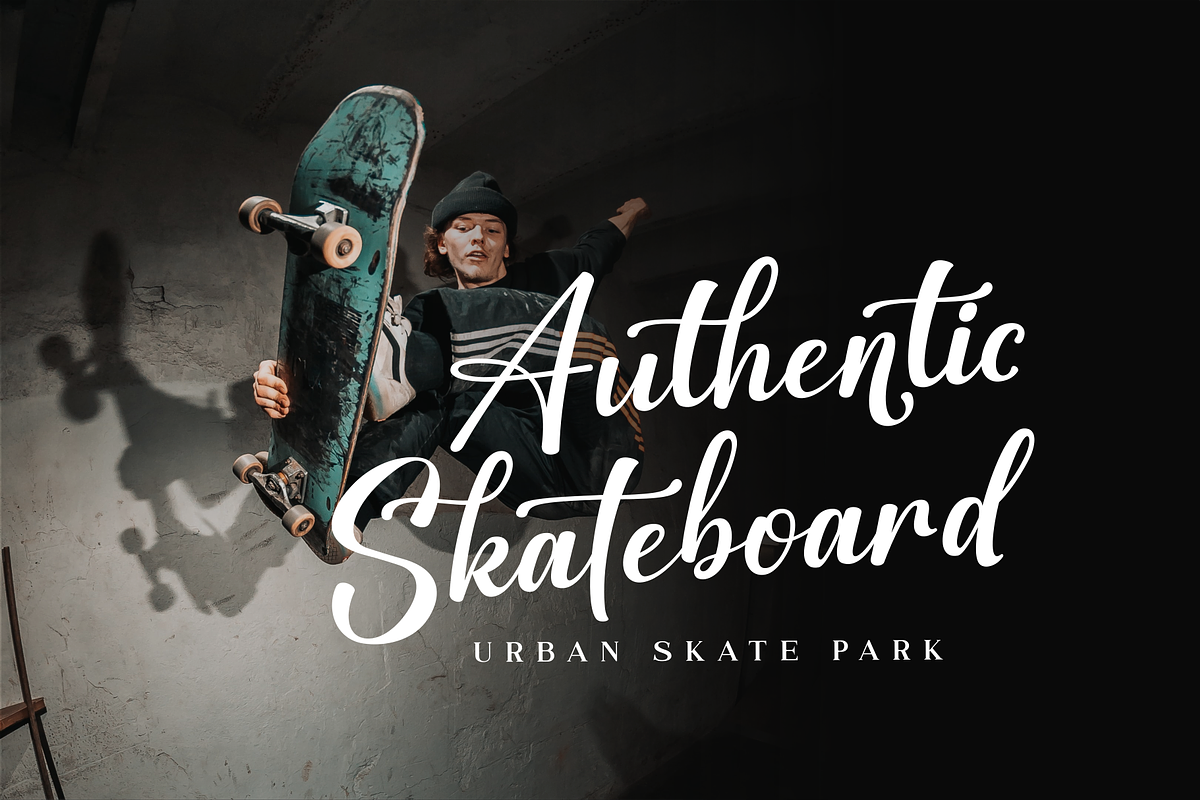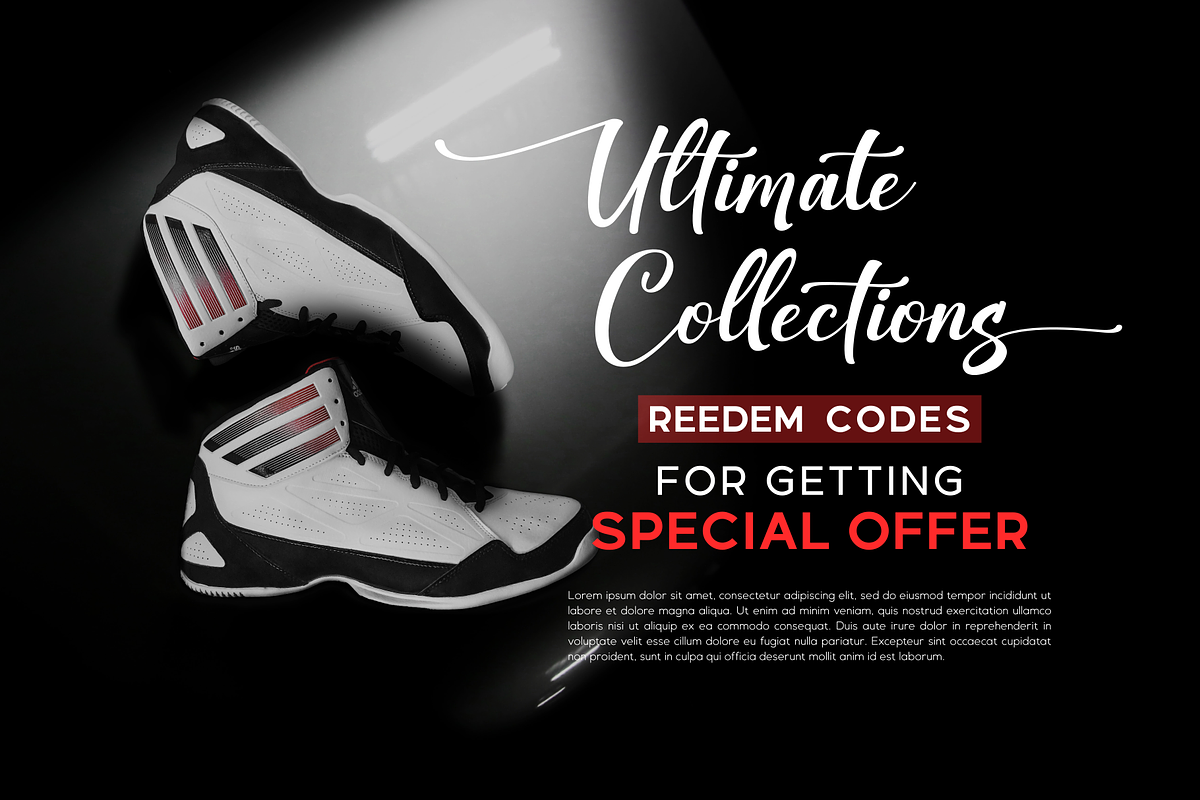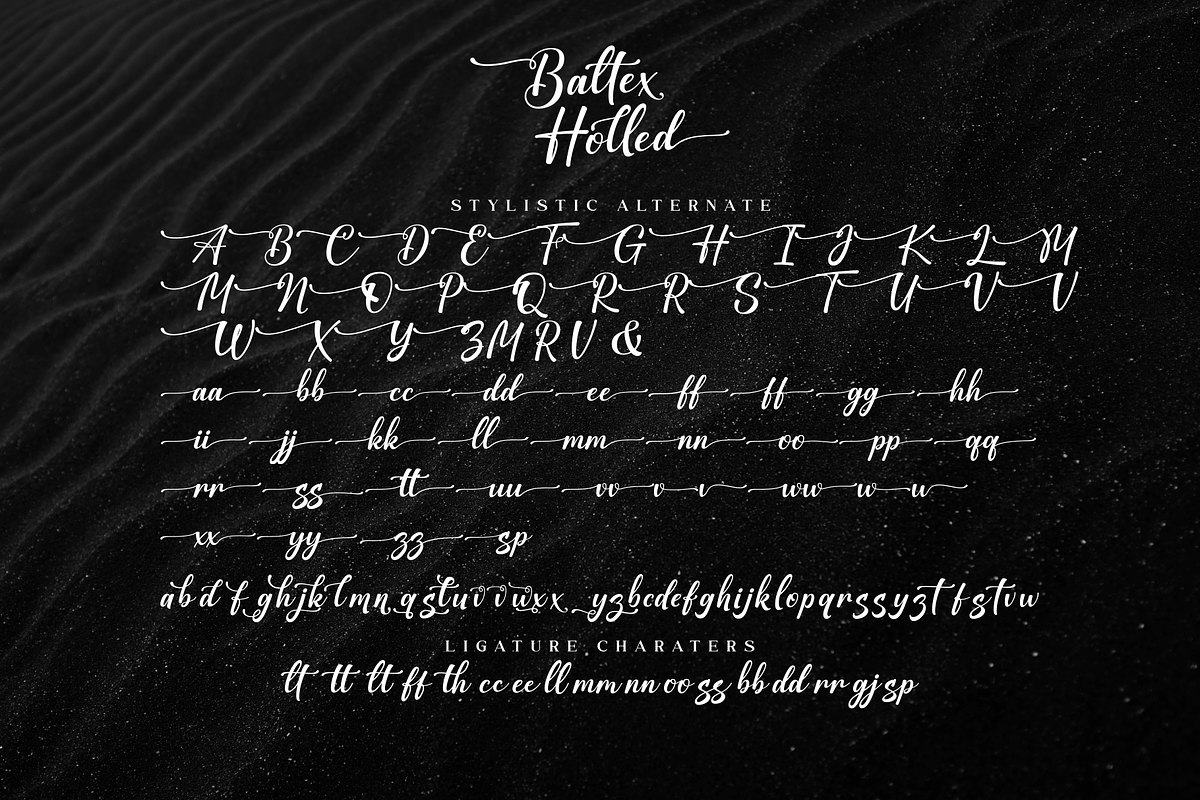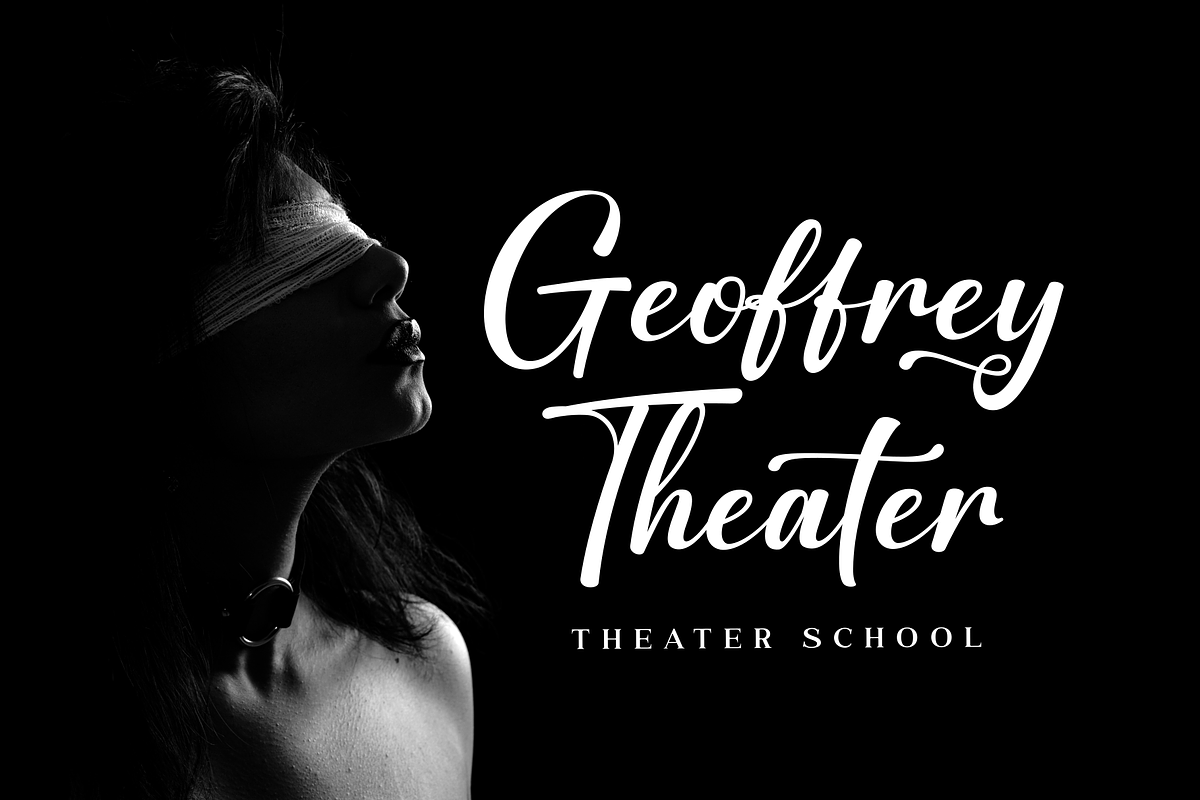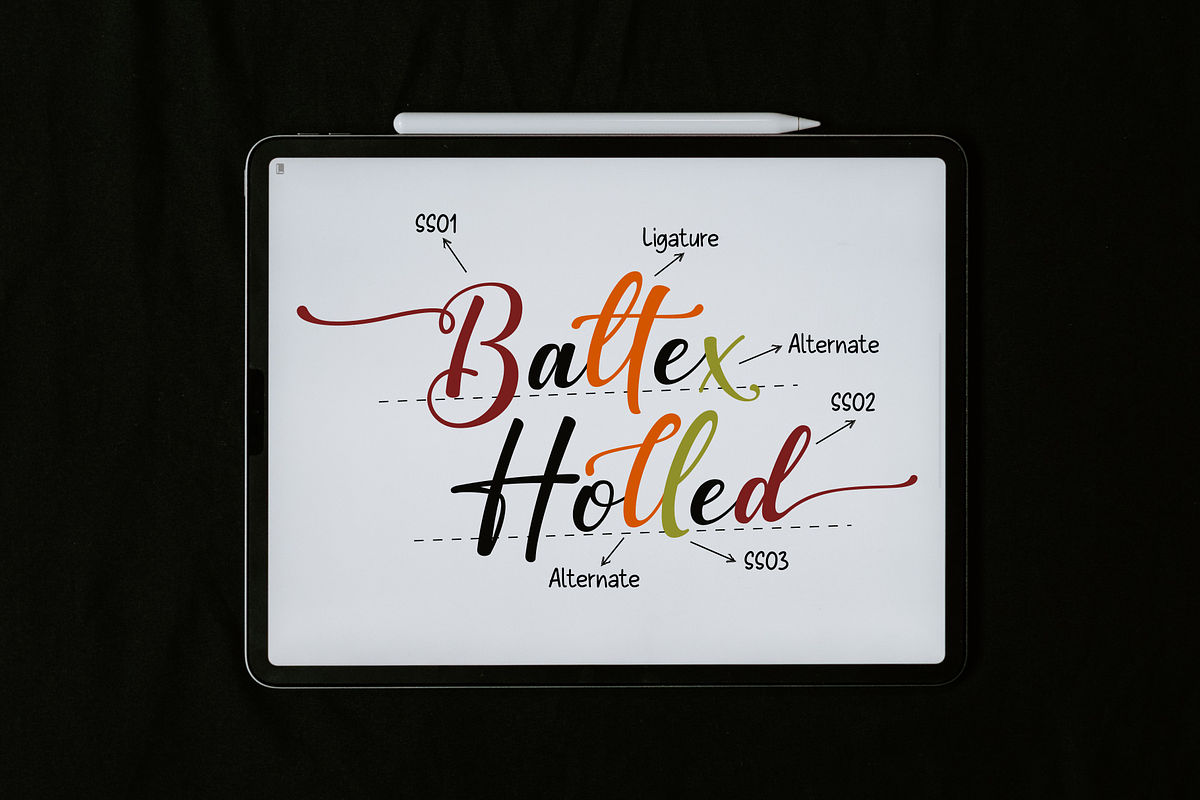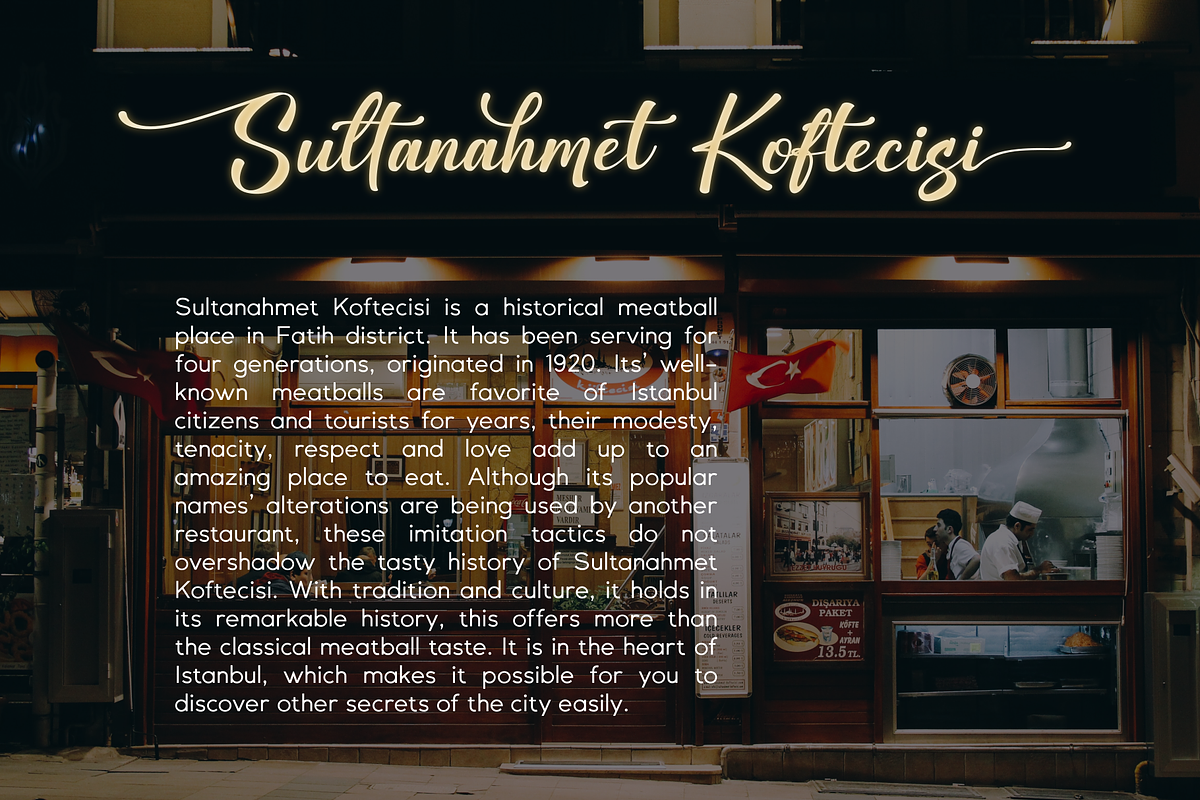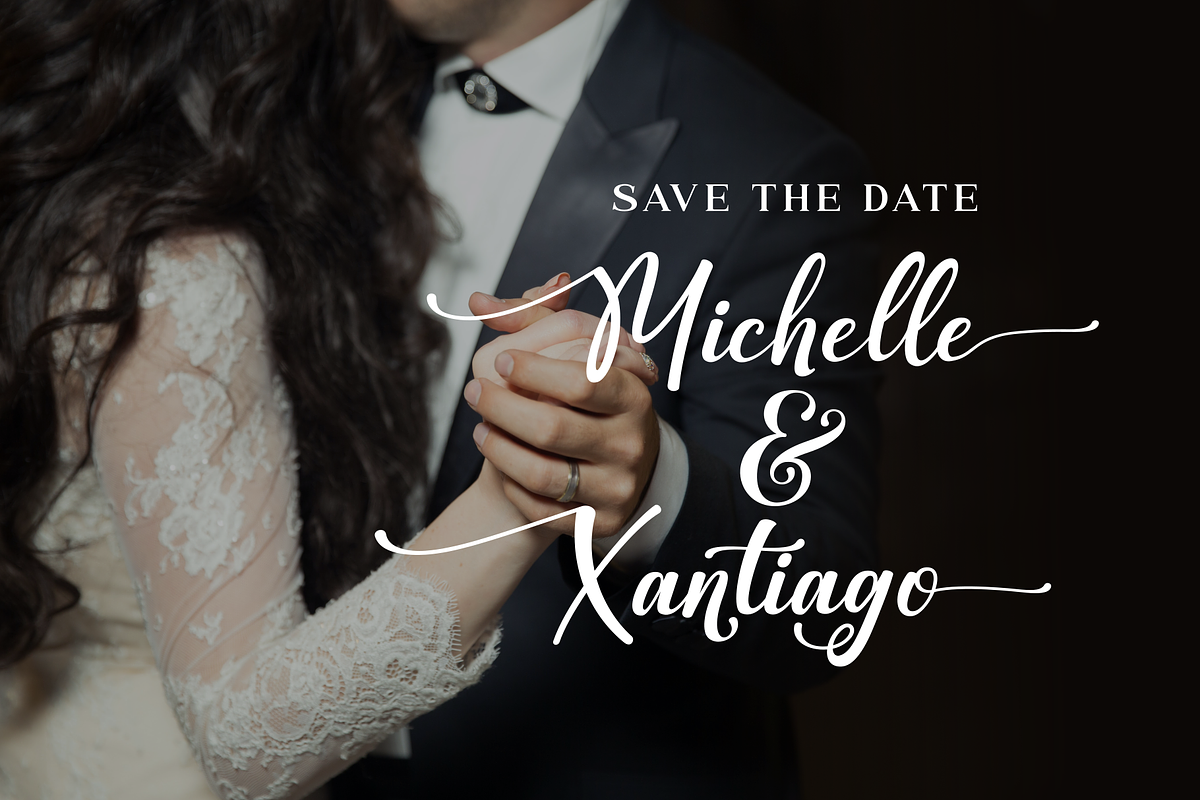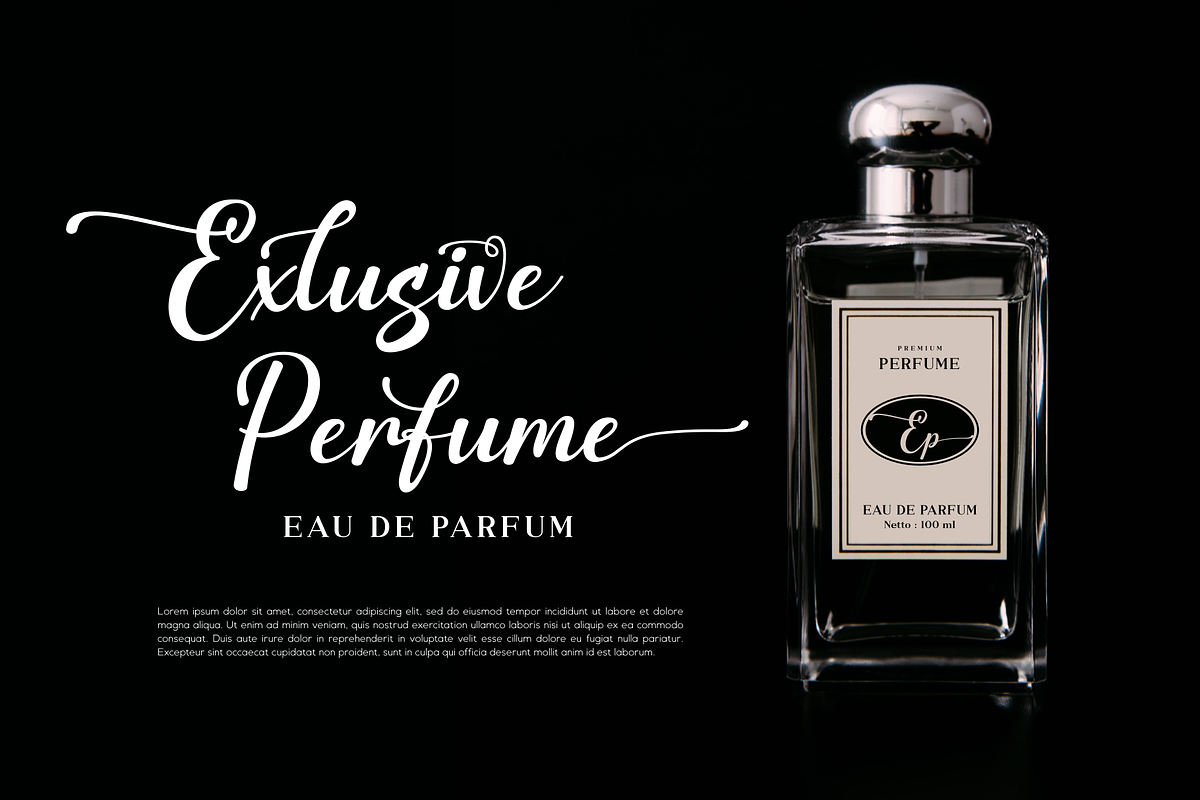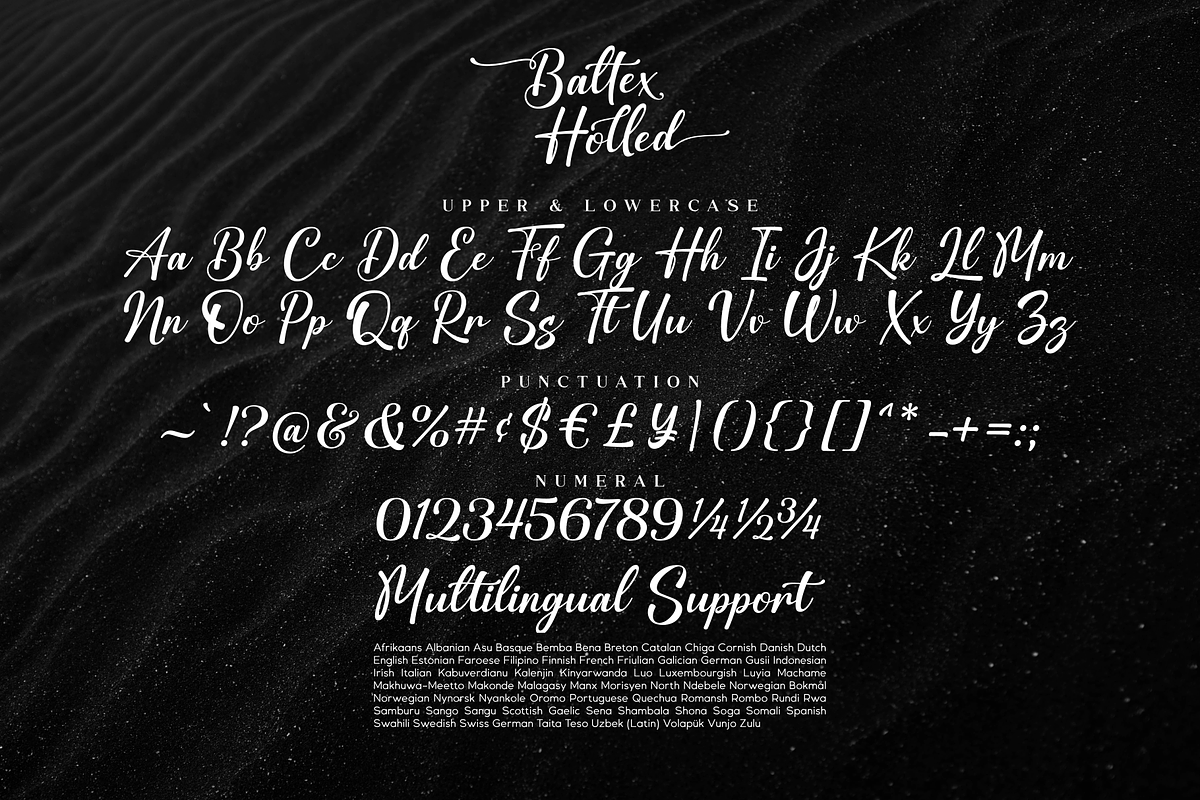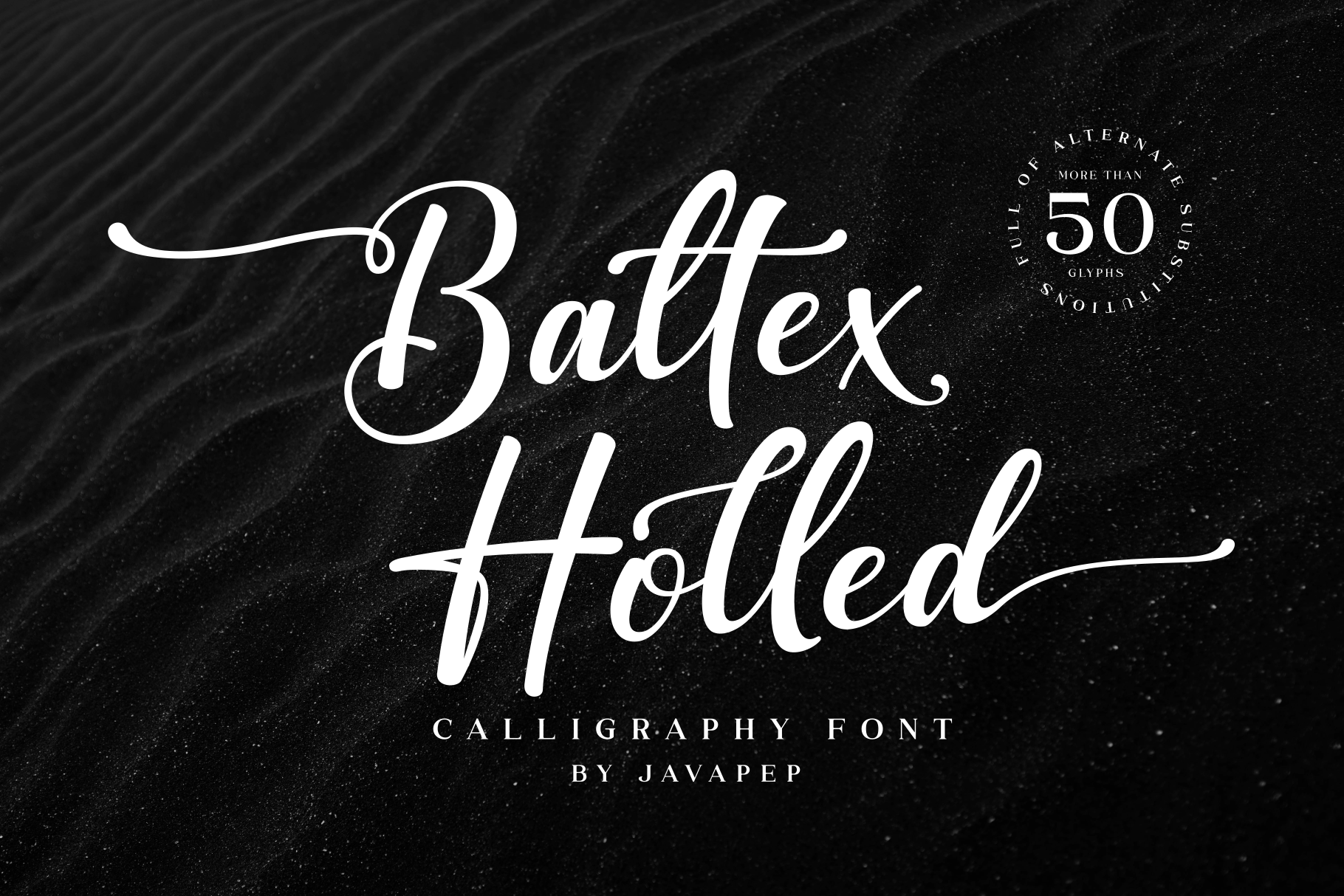
Baltex Holled / Calligraphy font
Baltex Holled is calligraphy font that has a lot of alternate characters such as swash in beginning and terminal, alternte and stylistic alternate. This font alredy PUA encoded so you can easly to find the all alternates characters even though you use software that can't accsess opentype characters otomaticlly so you can use with characters map software to switch it, you can see it https://www.youtube.com/watch?v=KV7n5nxmsLs . Baltex Holled font is perfect for logo font, title, headline, products packaging, branding identity, advertisements, media social post, and more.